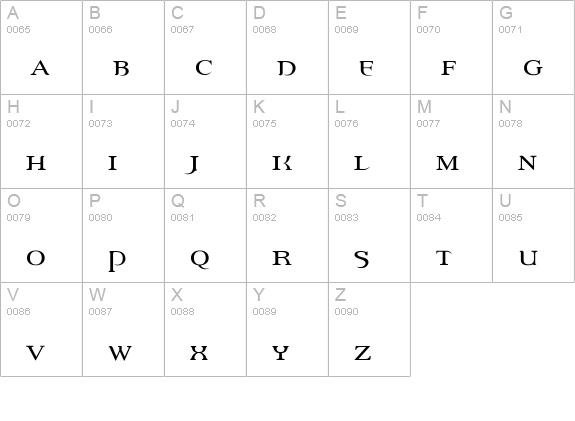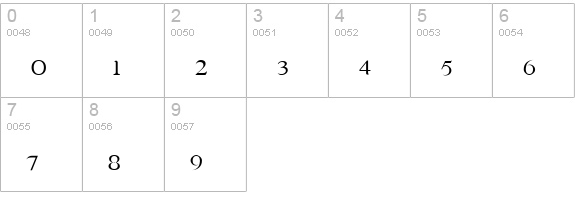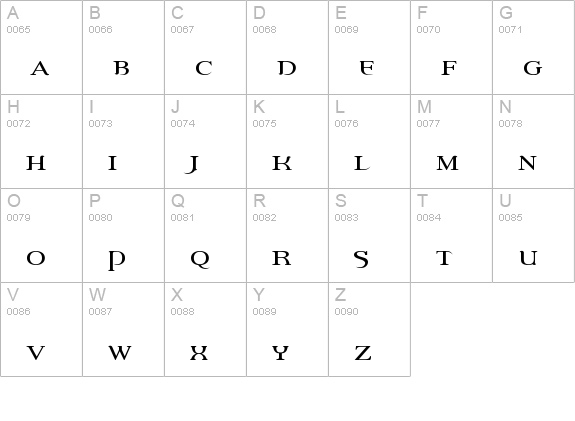
Percolator-Regular is the standard, neutral variant in the Percolator typeface family \xE2\x80\x94 well suited to general body text, paragraphs, and standard typographic work.
Percolator-Regular font is a versatile and stylish typeface that brings a touch of elegance and sophistication to any design project. With its clean lines and timeless appeal, this font is perfect for both digital and print applications. Featuring a balanced combination of rounded and sharp edges, Percolator-Regular font strikes the perfect balance between modernity and classic design elements. Its unique letterforms add a distinctive charm to any text, making it ideal for logos, branding, headlines, and more. What makes Percolator-Regular font even more appealing is its availability as a free download at FontsMarket.com. This means that you can easily access and utilize this beautiful typeface without any cost. Whether you are a professional designer or a casual enthusiast, Percolator-Regular font is a valuable addition to your font library. With its wide range of characters and glyphs, Percolator-Regular font offers extensive language support, making it suitable for multilingual projects. Its legibility and readability ensure that your message is conveyed effortlessly, no matter the language or medium. Whether you are creating a website, designing a poster, or crafting a social media post, Percolator-Regular font will elevate your design to new heights. Its versatility and aesthetic appeal make it a go-to choice for designers looking to make a lasting impression. Download Percolator-Regular font for free at FontsMarket.com and unlock the potential of this remarkable typeface. With its elegant design and extensive features, Percolator-Regular font is a must-have for any design project. Experience the beauty and versatility of this font today and bring your creative visions to life.